2024 has been a great year for type design. Over the past few years geometric sans have been less apparent, with cursive and serifs having something of a renaissance; that trend continued this year.
There’s been a very clear fashion for French design. Experimental fonts are more usable than ever.
Euchre
Euchre is a straightforward sans-serif font crafted for readability in running text. With balanced proportions and an open structure to leads the eye, it offers various features, including small caps, a condensed style, and a versatile variable font option.
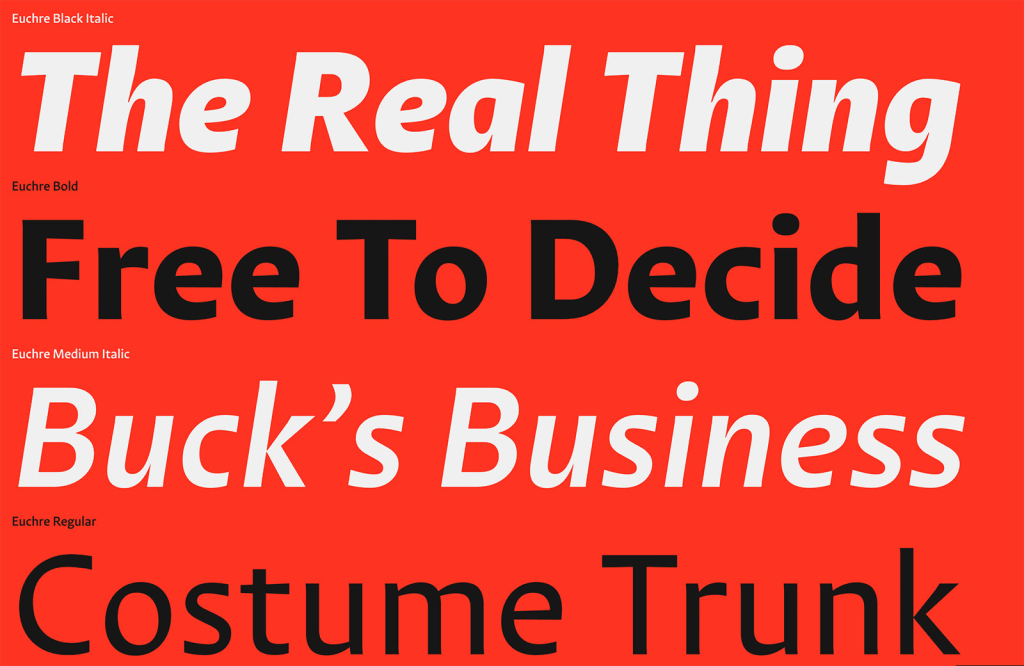
Raconteurs
Raconteurs is a delightful script font. Its elegant loops and curves create each letter with a single flowing stroke. Imagine a ribbon cascading onto a page and transforming into beautiful letters — this is the charm of Raconteurs.
Gonzaga
Gonzaga is a lively and modern slab serif font featuring clean, contemporary lines and dynamic rhythms. Its vibrant energy makes it an excellent choice for designing logos, creating posters, or eye-catching hero text.
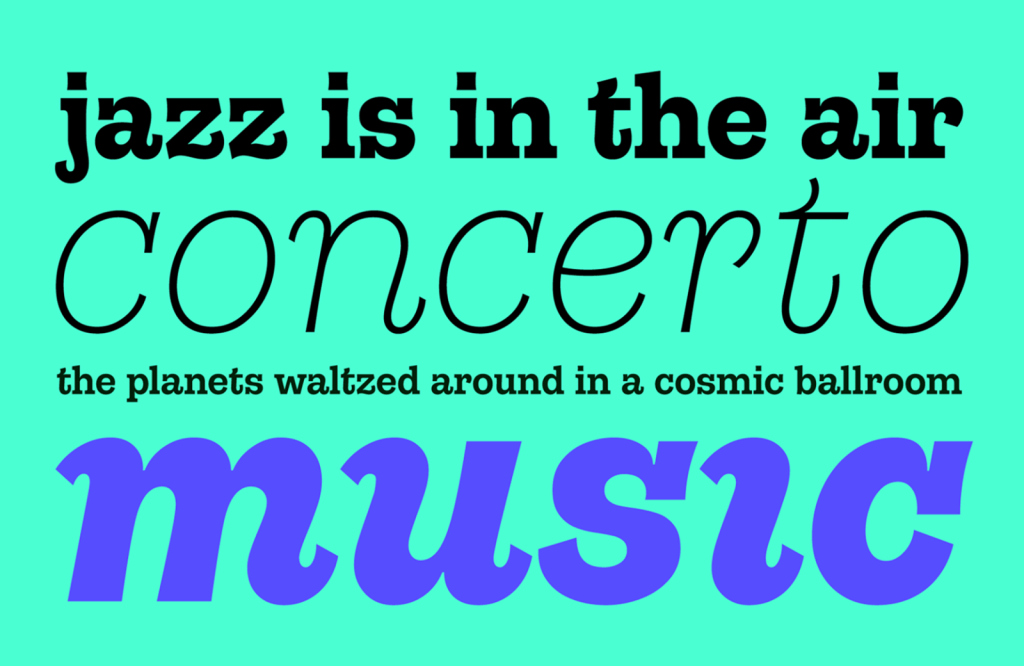
TT Commons™ Pro
TT Commons™ Pro builds upon the excellence of TT Commons, offering five distinct subfamilies: Normal, Condensed, Compact, Expanded, and Mono. Each features 11 weights with matching italics. Additionally, two variable fonts enhance versatility, providing rich typographic options.
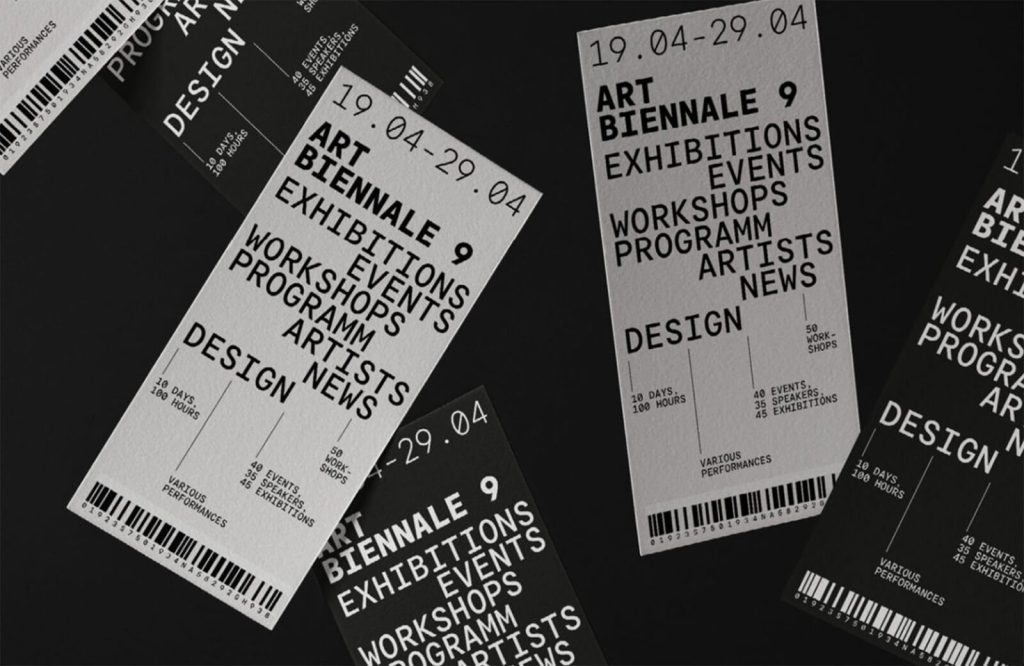
Arsen
Arsen belongs to the Elzevir genre, an Old Style design rooted in French type design. It offers four optical sizes: Text, Normal, Affiche, and Display. It emphasizes excellent word spacing for a refined and balanced reading experience.
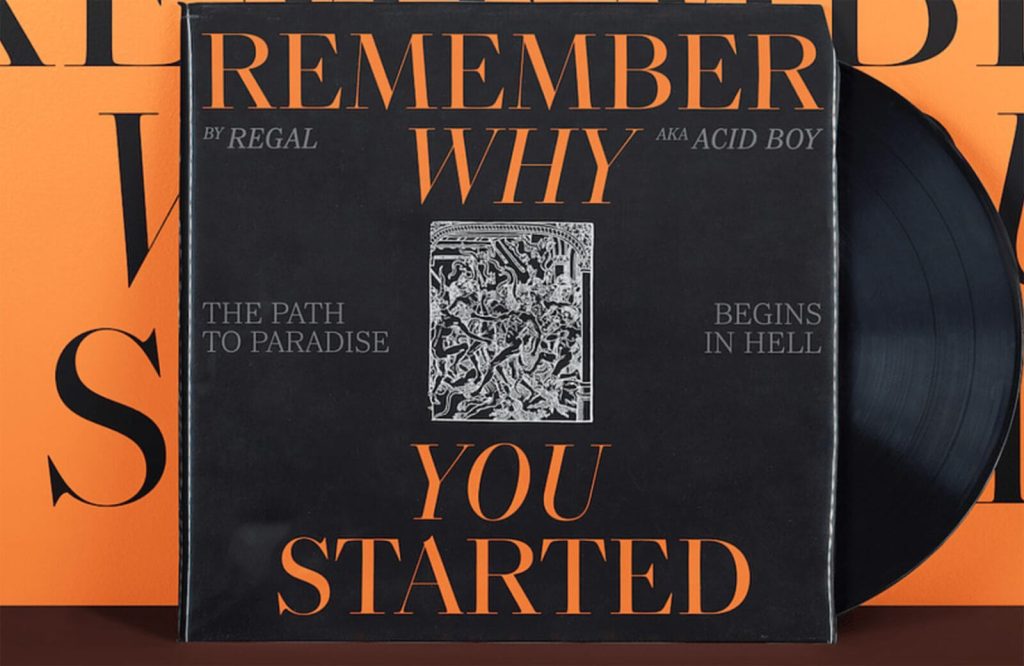
Paradisian Serif
Paradisian Serif is a bold, all-caps serif font designed for branding and headline use. Featuring delightful ligatures and alternates, it offers diverse creative options for experimenting with text layouts and word shapes, making it ideal for eye-catching designs.
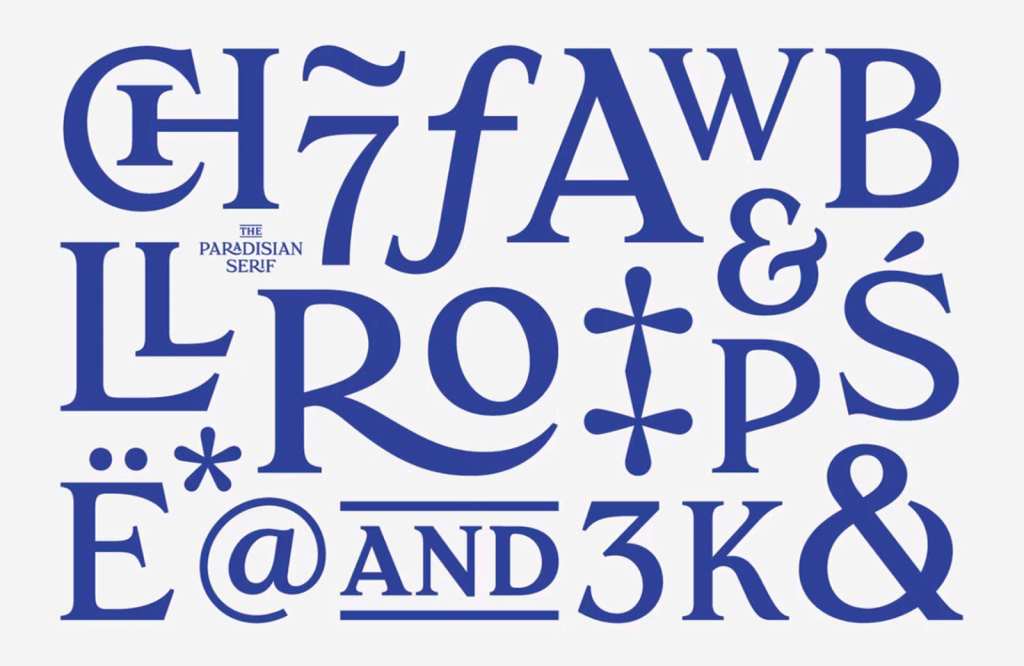
Anathera
Anathera is a striking, minimalist font with unique pixelated diagonal strokes. At large sizes, its pixelation feels bold and edgy, while smaller sizes create the illusion of motion in the text. It’s perfect for projects aiming to grab attention and leave an impression.
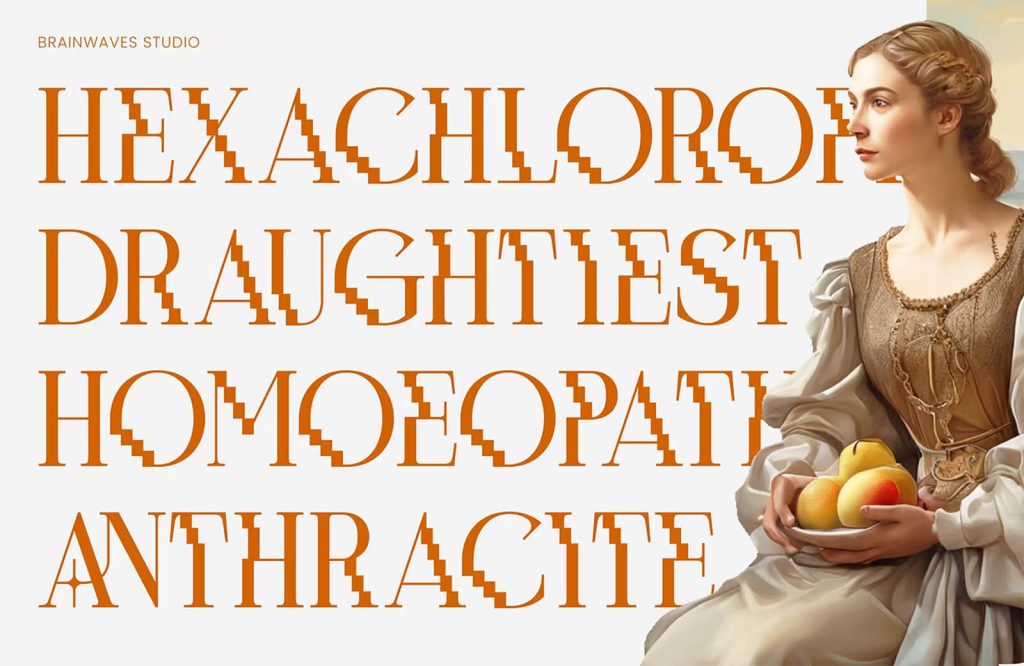
Motorik
Motorik is a modernist sans serif in the neo-grotesque style, offering a fresh take on mid-20th-century design ideas. Unlike traditional sans serifs of the actual era, Motorik is optimized for digital use, benefiting from decades of typographic advancements.
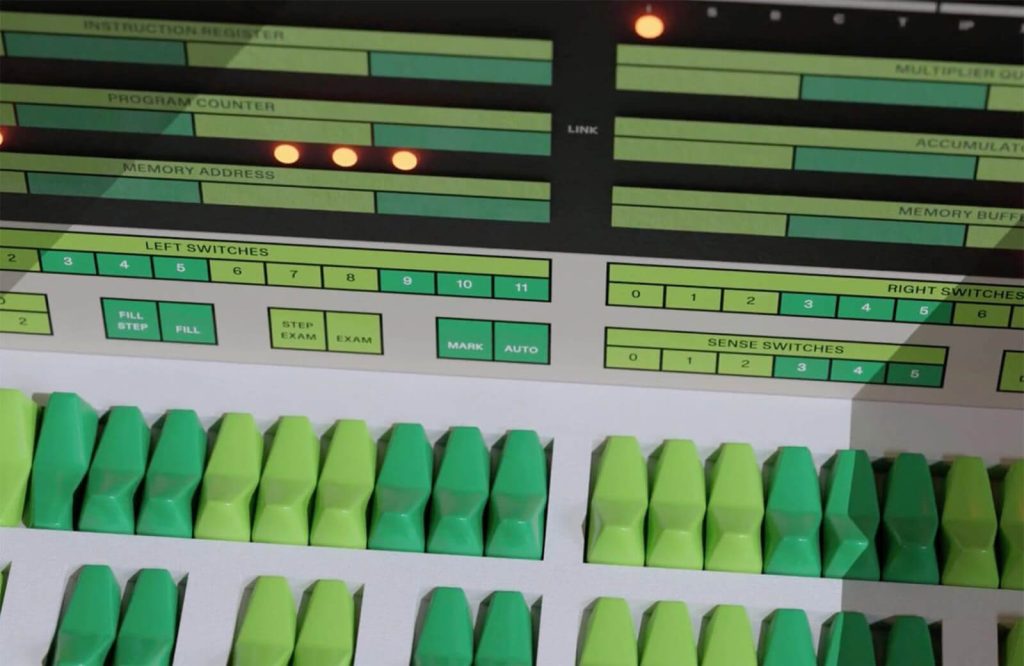
Thermal
Thermal is a modern serif typeface designed as a variable font with weight and optical size axes. True to its name, it offers a warm, inviting feel. Its readability suits extended text, while its bold character excels at display sizes.
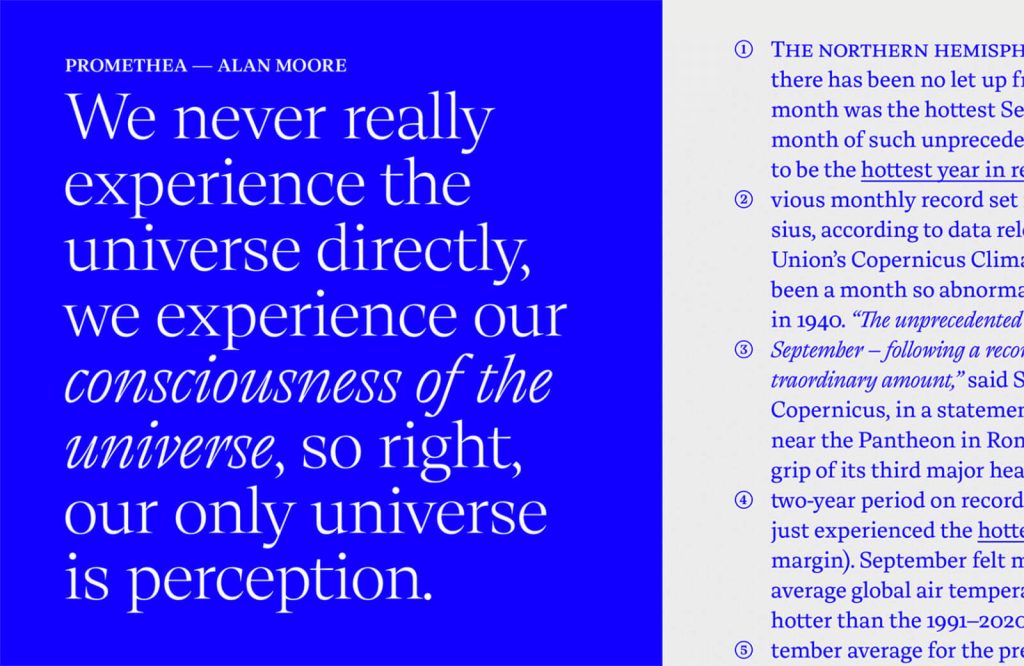
Unigeo
Unigeo is a geometric sans-serif font inspired by 1980s aesthetics, evoking the vibe of retro VHS packaging or vintage computer magazines. It offers five variable font styles, with the 128 version a stand out.
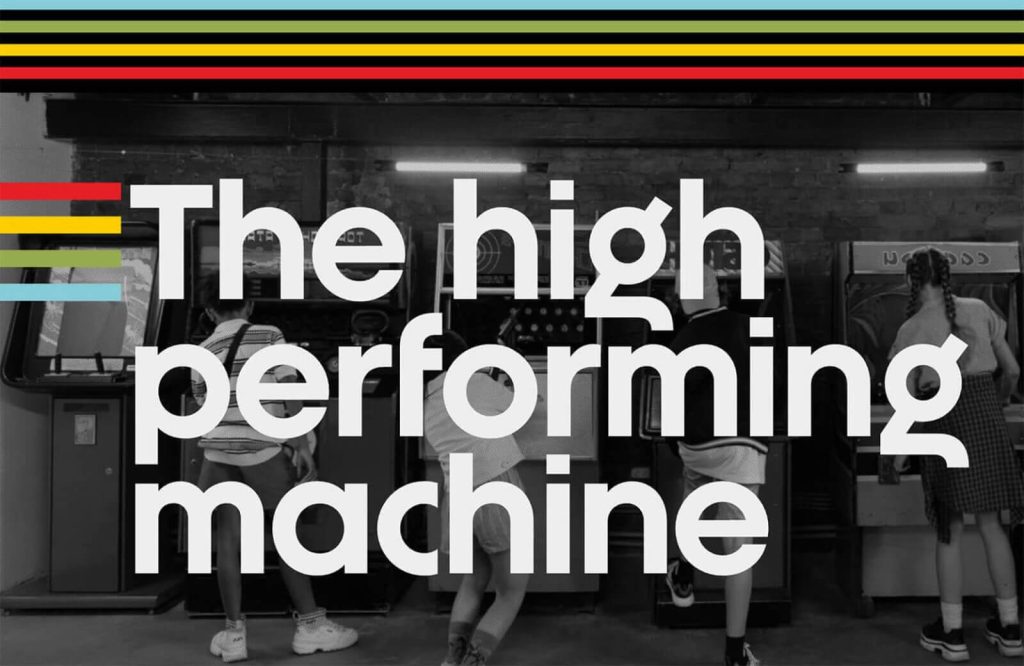
Kessler
Kessler is available in Text, Display, and Super Display styles, offering an elegant serif design with balanced contrast and understated serifs. It includes multiple weights, matching italics, and even a monospaced version, making it a versatile choice for UI and other design needs.
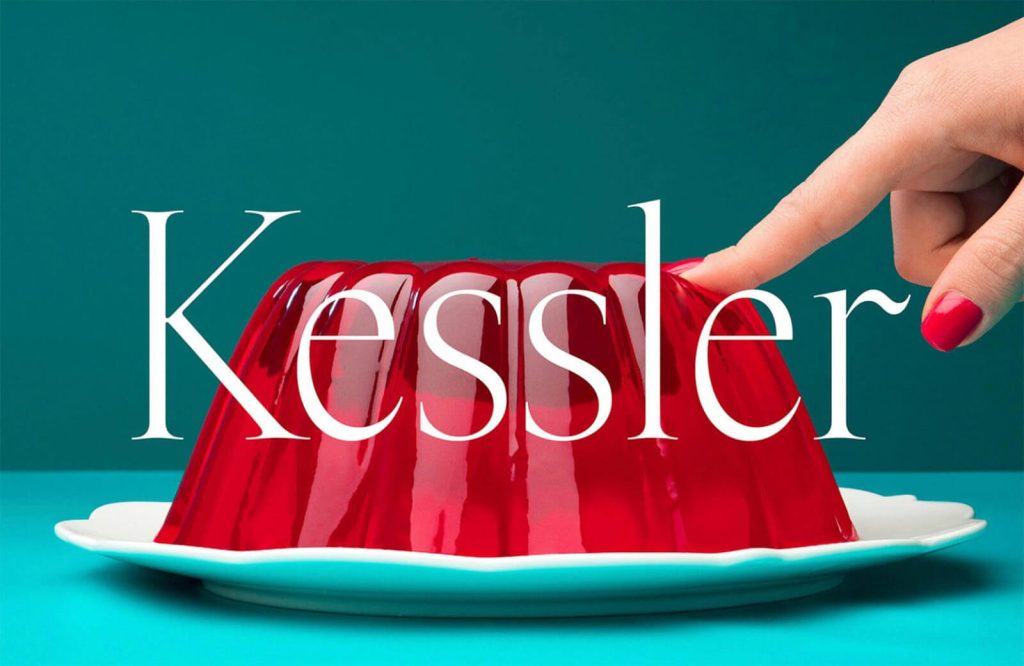
Franziska
Franziska is a bold and versatile serif font influenced by various design traditions, giving it a unique identity. Ideal for body text, it also shines as a display typeface when you increase the weight and tighten the spacing. A variable font option is available.
Octave
Octave is a serif font inspired by French Old Style designs. It includes unique musical symbols and emojis, making it perfect for music-related texts. With open counters and a consistent rhythm, it’s easy to read and an excellent alternative to boring old Times.
Periodica
Periodica is an elegant transitional serif featuring soft, curved brackets that add a subtle warmth to its letterforms. Ideal for lengthy text blocks, it excels at business communication designs.
De Britges
De Britges is a bold brush script inspired by vintage music posters. Its alternate characters and ligatures bring a hand-lettered vibe to your work. The numerals, in particular, stand out as a highlight.
Gravita
Gravita is a confident typeface that merges timeless elegance with modern flair. Its design evokes trust and decisiveness, making it an excellent choice for anyone aiming to inspire confidence. It would have been a great election campaign font.
Racina
Racina is a high-contrast sans-serif typeface featuring flared strokes that give it a warm and inviting character. Its design is inspired by the natural beauty of Sicily’s landscape.
Mansel
Hour
Hour is an experimental variable font with two axes that produce a striking 3D effect. Both axes manipulate the size of the dots forming each letter, altering contrast and light angle. It’s practically begging to be animated.
Super Massive
Super Massive is a striking all-caps display typeface that prioritizes boldness and strong visual impact. It comes in three styles: i, ii, and iii, that begin with a bold design and increase in weight and intensity.